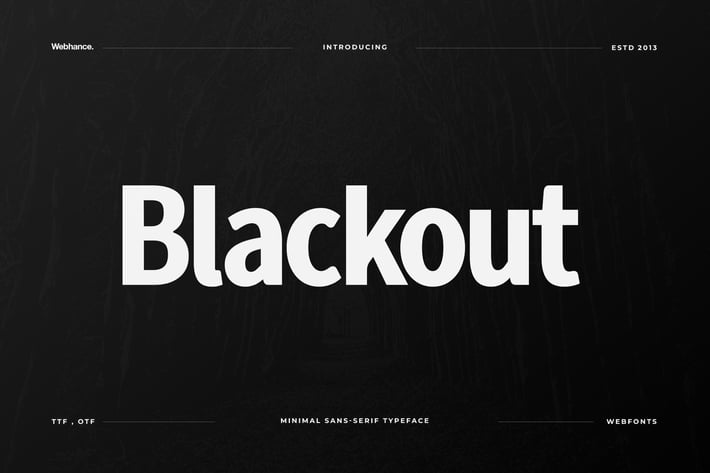
Blackout - Modern Sans-Serif Font
Blackout Sans: Illuminate Your Designs
Introducing "Blackout," a captivating font meticulously crafted for versatility and visual impact. With a harmonious blend of lowercase and uppercase glyphs, Blackout emanates a modern and dynamic aura, making it the perfect choice for a myriad of creative applications.
A perfect blend of sophistication and modernity, it is ideal for film posters, social media thumbnails, social media posts, and captivating branding. Every character is crafted for expressive clarity, ensuring your text stands out with energy and flair. Tailored for the digital age, Blackout effortlessly elevates your online presence, adding a touch of Blackout to video thumbnails and social media announcements. Perfect for professional branding, its clean lines and contemporary style make it a memorable choice for impactful logos and materials.